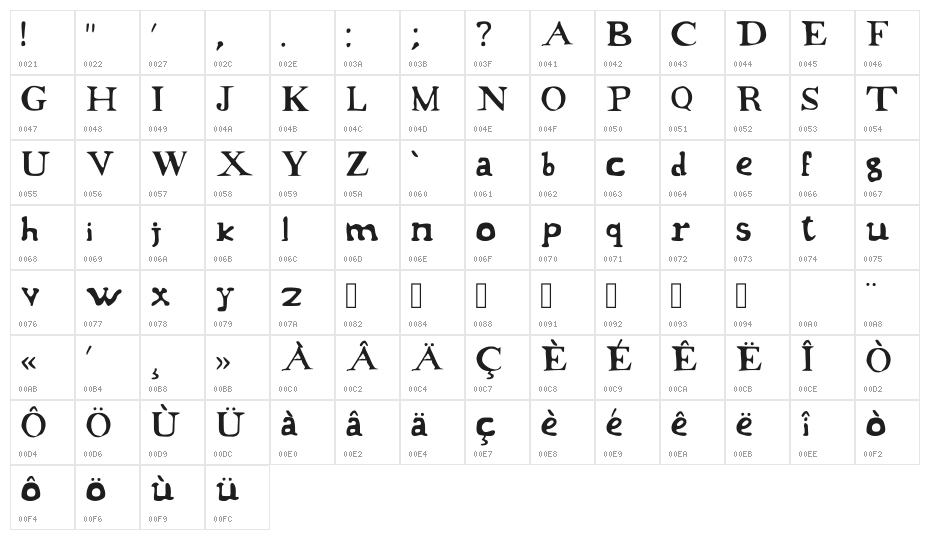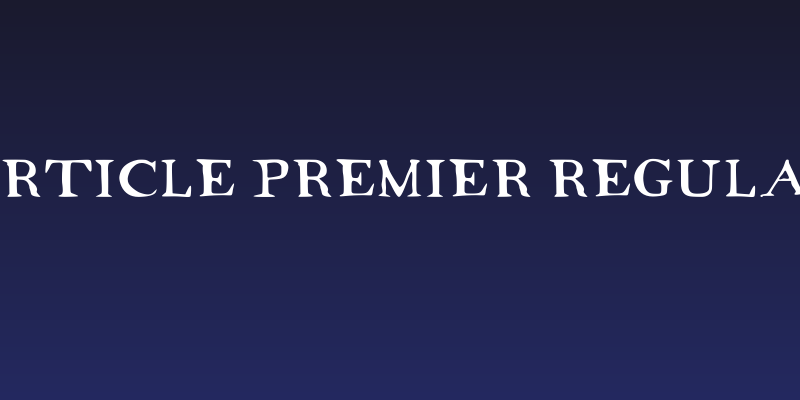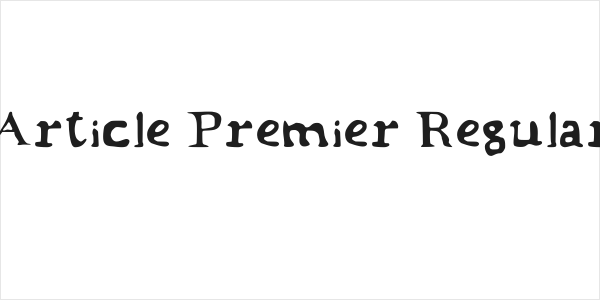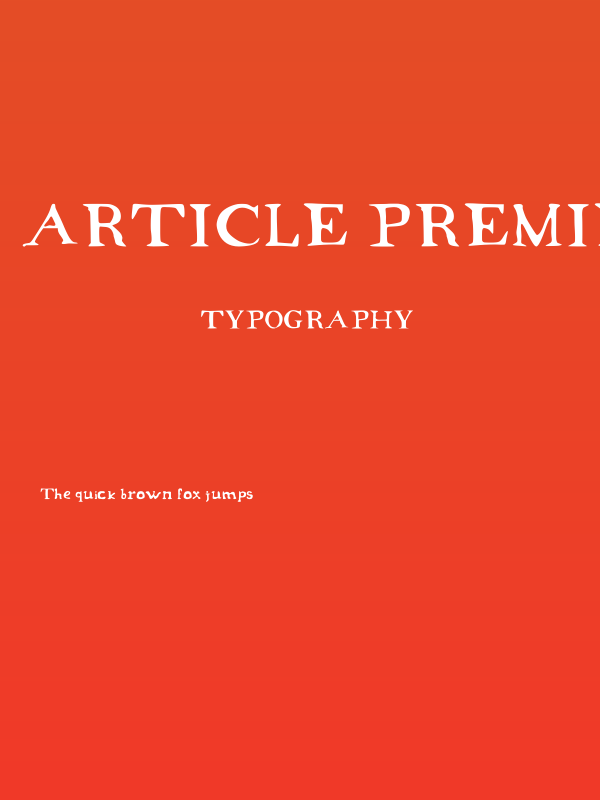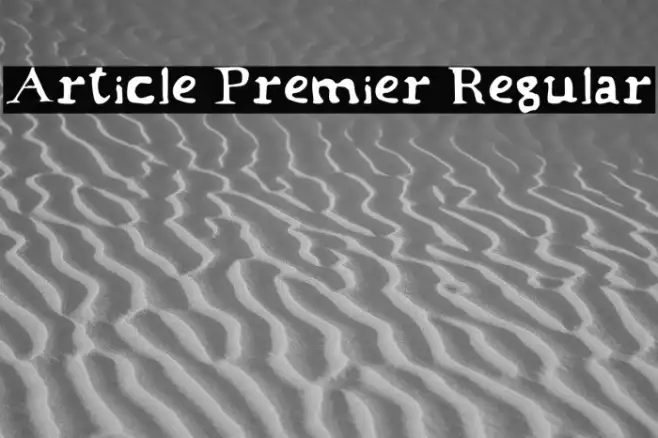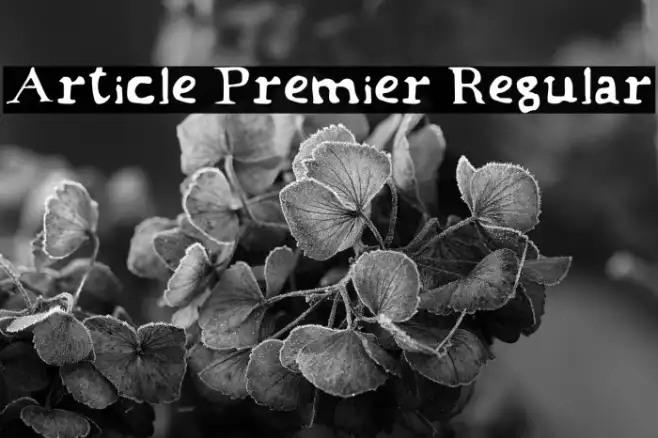
Article Premier Regular Font
Article Premier Regular Description
This font features a unique blend of classic serif elements with a playful, almost whimsical touch. The uppercase letters are characterized by their traditional serif structure, yet they exhibit a slightly irregular form that adds a sense of movement and dynamism. The lowercase letters continue this theme with a more pronounced irregularity, giving them a hand-drawn appearance. The numerals and special characters maintain this style, ensuring consistency throughout. The overall design is both approachable and sophisticated, making it suitable for a variety of creative applications.
| Use Case | Headlines, Logos, Artistic projects |
| Proposed Projects | Ideal for creative projects such as children's books, playful branding, and artistic posters. |